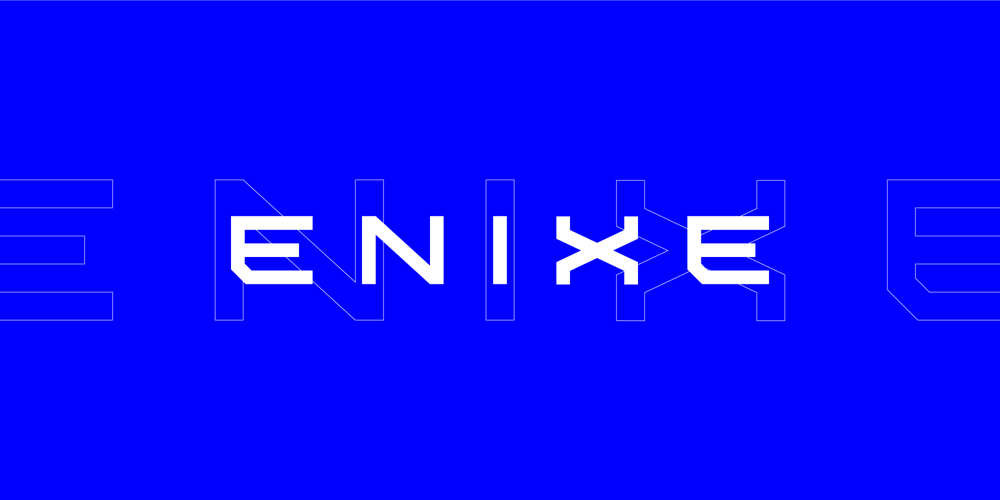
Enixe Font Family was designed by Foyez Uddin and published by Foyezes. Enixe contains 1 styles and family package options. This font has the same uppercase and lowercase letters with some modifications on the uppercase letters. I included the modified letters to use however you like.